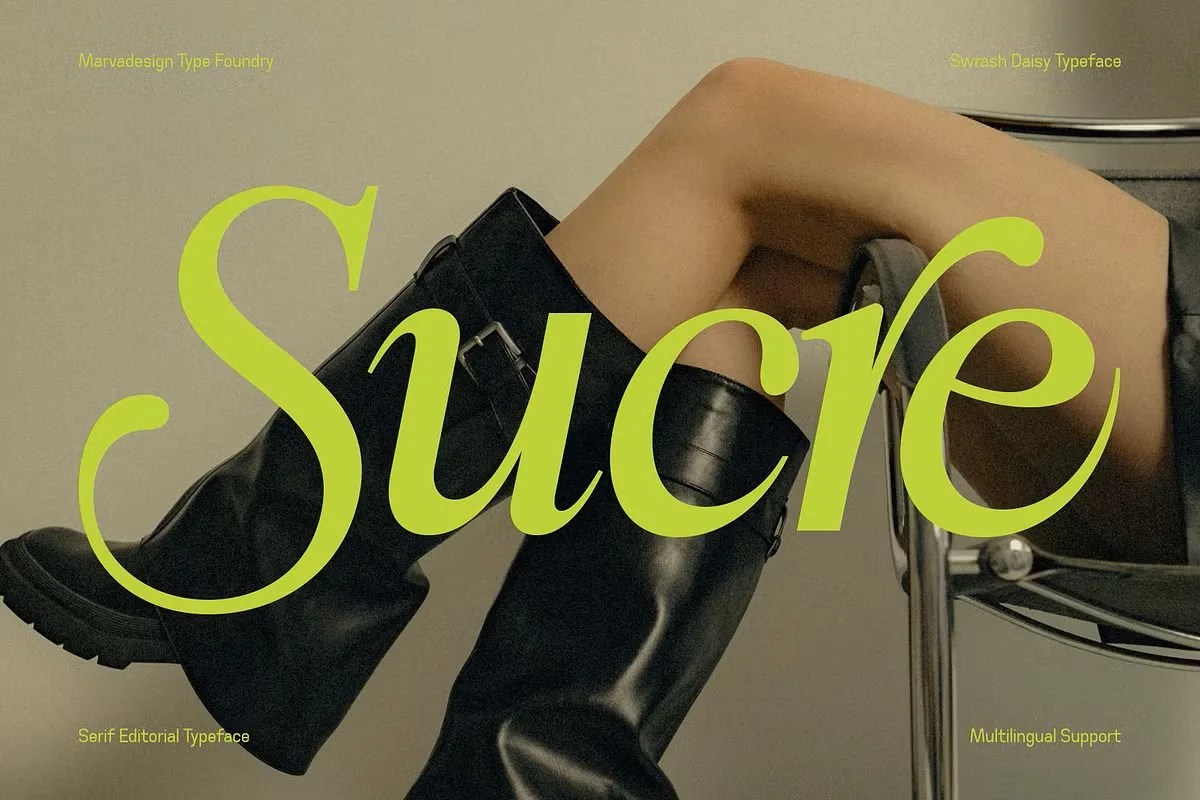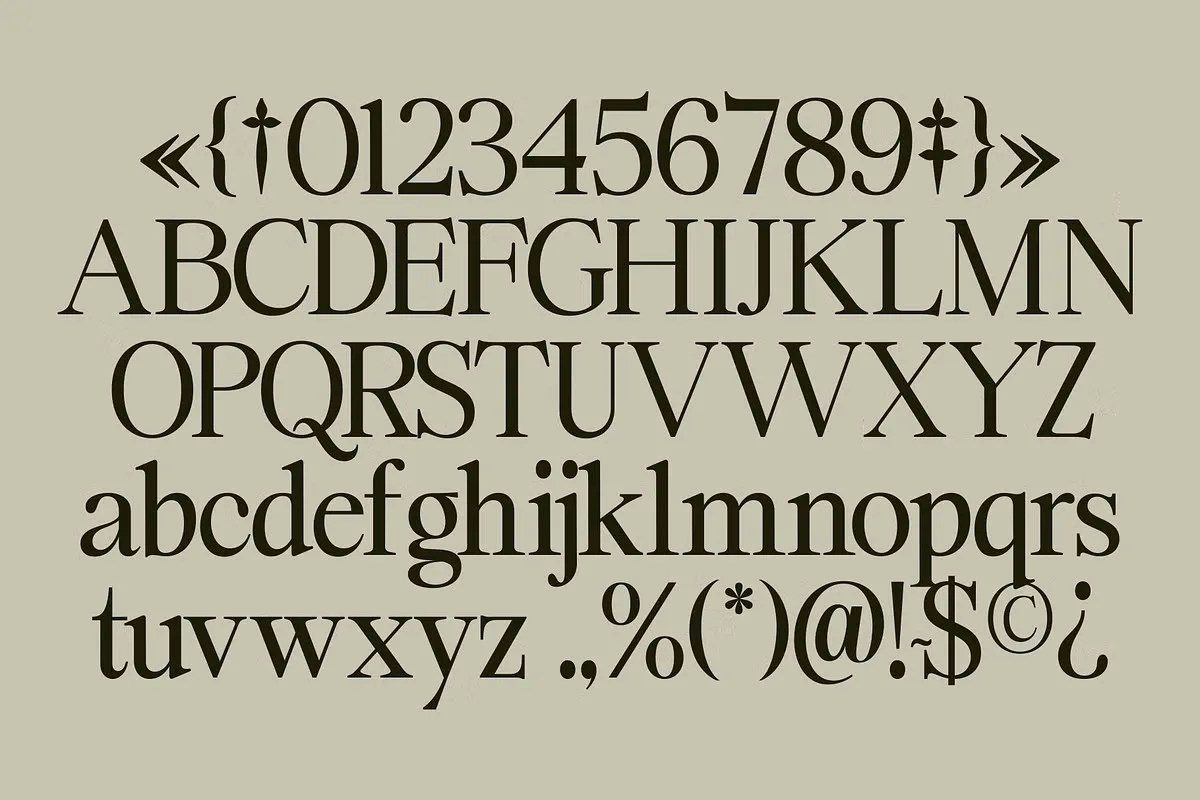
Swarsh Daisy by Marvadesign is a refined serif font that combines classic elegance with a modern aesthetic. Featuring clean lines, stylish curves, and timeless serif details, it brings a sense of sophistication and balance to any design.
Perfect for logos, invitations, editorials, packaging, book titles, and branding, Swarsh Daisy offers a versatile typeface that adapts beautifully across print and digital media. Its graceful yet contemporary look makes it ideal for projects that require professionalism with a creative edge.
• Elegant serif style with modern refinement
• Great for logos & branding projects
• Perfect for wedding invitations & stationery
• Ideal for magazines & editorials
• Strong choice for book covers & titles
• Versatile for packaging & product design
• Stylish balance of classic and modern aesthetics
Swarsh Daisy